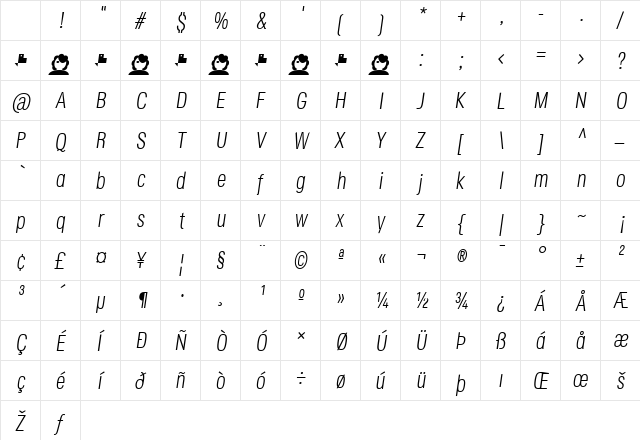
Jane Roe is a composed and adaptable typeface that performs quietly and consistently across a wide range of design contexts. The slanted form adds forward momentum and visual energy. Its slender proportions lend an understated elegance to any composition.
Pro Tip: Use Jane Roe for emphasis, pull quotes, and subheadings where its slanted energy can add rhythm to the layout.